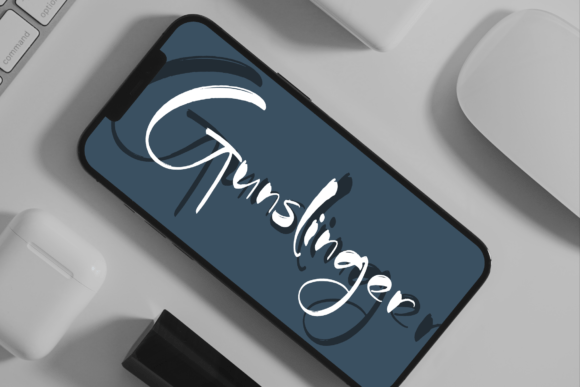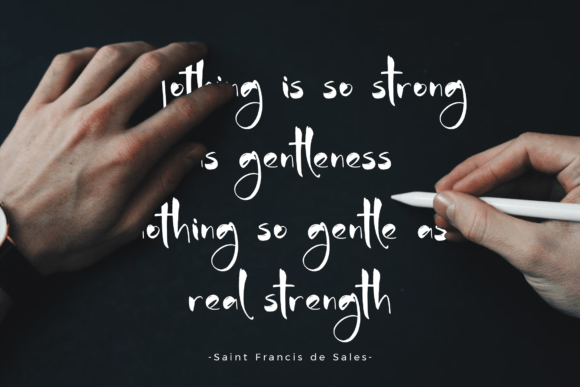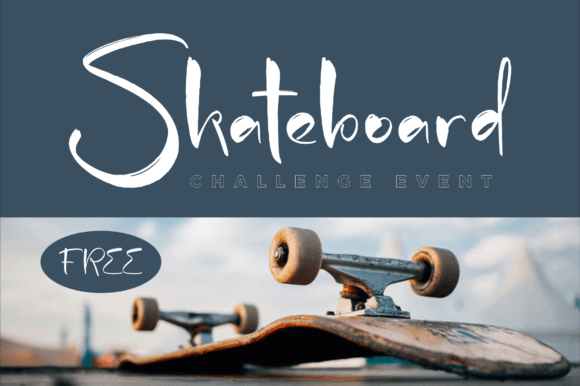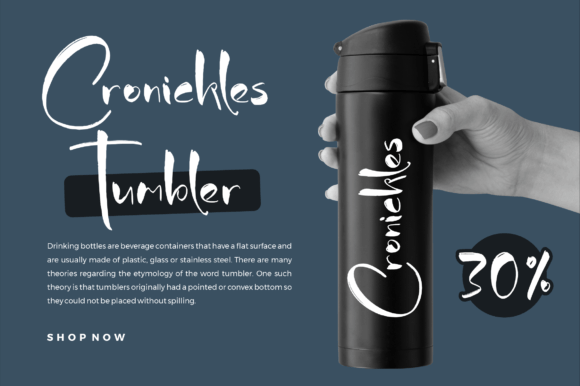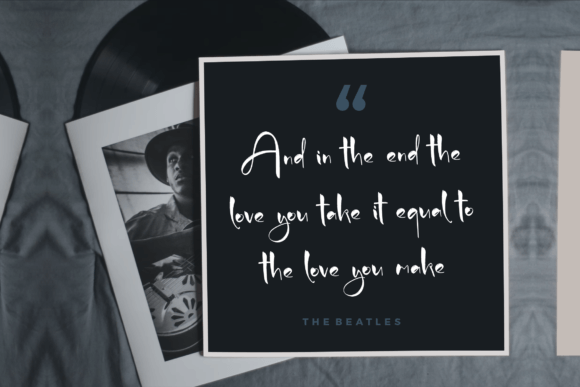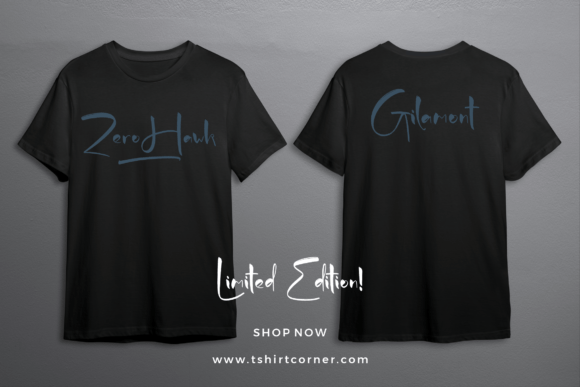
Introducing Chastorfield Font: Elevate Your Designs with Elegance
Are you on the hunt for a font that exudes sophistication and poise? Look no further than Chastorfield, a stunning modern script font that is sure to take your designs to the next level. With its beautiful rhythm and flowing lines, Chastorfield is the perfect choice for designers and crafters looking to create gorgeous and classy compositions.
The Characteristics of Chastorfield Font
Chastorfield is a graceful, modern script font that boasts a range of impressive features. Its elegant lines and beautiful rhythm make it perfect for creating sophisticated designs that are sure to impress. Whether you’re working on branding projects, invitations, web graphics, cards, or any other type of design, Chastorfield is the ideal choice.
One of the standout features of Chastorfield is its versatility. This font can be used for a wide range of design projects, from formal invitations and business branding to social media graphics and more. Its modern script style ensures that your designs will look fresh and contemporary, while its elegant lines and curves add a touch of sophistication.
Why Choose Chastorfield Font?
So why should you choose Chastorfield for your design projects? Here are just a few reasons why this font stands out from the crowd:
- Elegance and Sophistication: Chastorfield’s beautiful rhythm and flowing lines make it the perfect choice for designs that require a touch of elegance and sophistication.
- Versatility: This font can be used for a wide range of design projects, from formal invitations and business branding to social media graphics and more.
- Modern Style: Chastorfield’s modern script style ensures that your designs will look fresh and contemporary.
- Easy to Read: Despite its elegant lines and curves, Chastorfield is easy to read, making it perfect for designs that require a clear and concise message.
How to Use Chastorfield Font
Using Chastorfield in your design projects is easy. Here are a few tips to get you started:
- Pair it with Other Fonts: Chastorfield looks great when paired with other fonts. Try pairing it with a clean sans-serif font for a modern and sophisticated look.
- Use it for Headings: Chastorfield’s elegant lines and curves make it perfect for headings and titles. Use it to add a touch of sophistication to your designs.
- Experiment with Colors: Chastorfield looks great in a range of colors. Experiment with different colors and combinations to find the perfect look for your design.
Design Ideas with Chastorfield Font
Chastorfield is a versatile font that can be used for a wide range of design projects. Here are a few ideas to get you started:
- Wedding Invitations: Chastorfield’s elegant lines and curves make it perfect for wedding invitations and other formal events.
- Branding and Logo Design: Use Chastorfield to create a sophisticated brand identity that will help your business stand out.
- Social Media Graphics: Chastorfield’s modern script style makes it perfect for social media graphics and other digital designs.
- Cards and Stationery: Use Chastorfield to create beautiful cards and stationery that are sure to impress.
In conclusion, Chastorfield is a stunning modern script font that is sure to elevate your designs to the next level. With its beautiful rhythm, elegant lines, and versatile style, Chastorfield is the perfect choice for designers and crafters looking to create gorgeous and classy compositions. Whether you’re working on branding projects, invitations, web graphics, cards, or any other type of design, Chastorfield is the ideal choice.